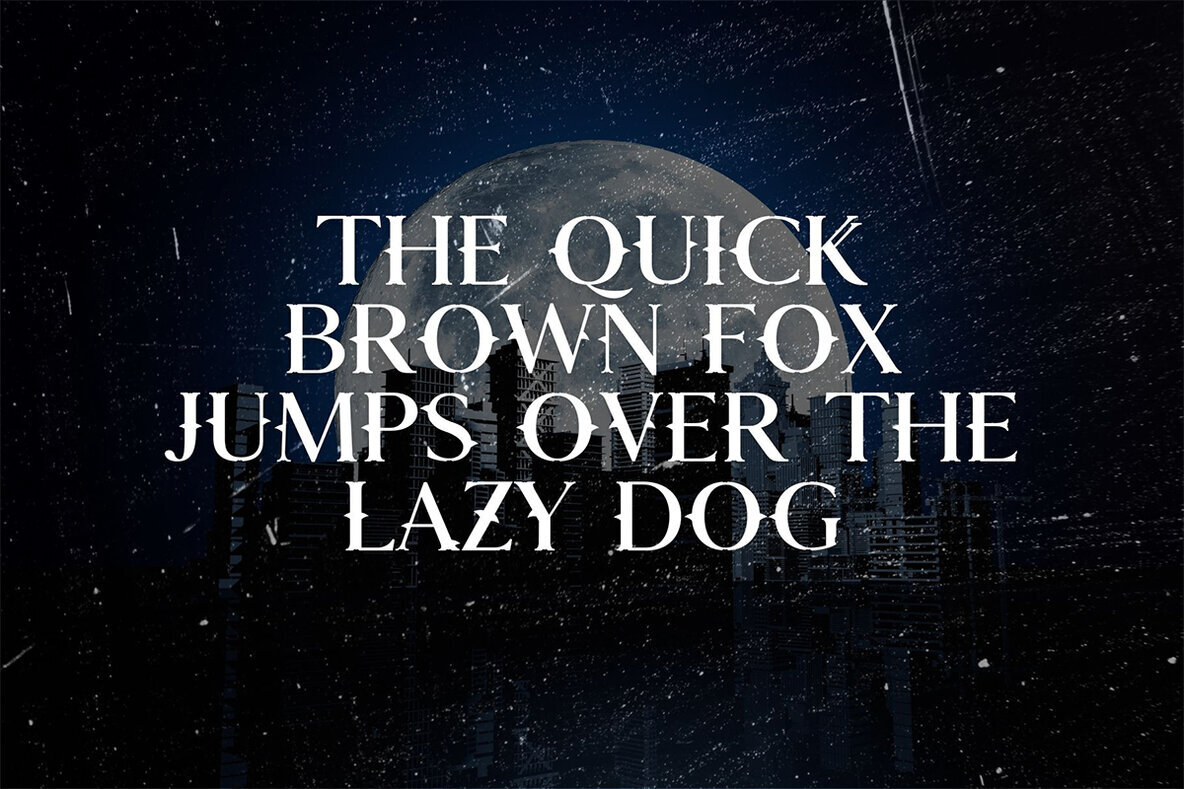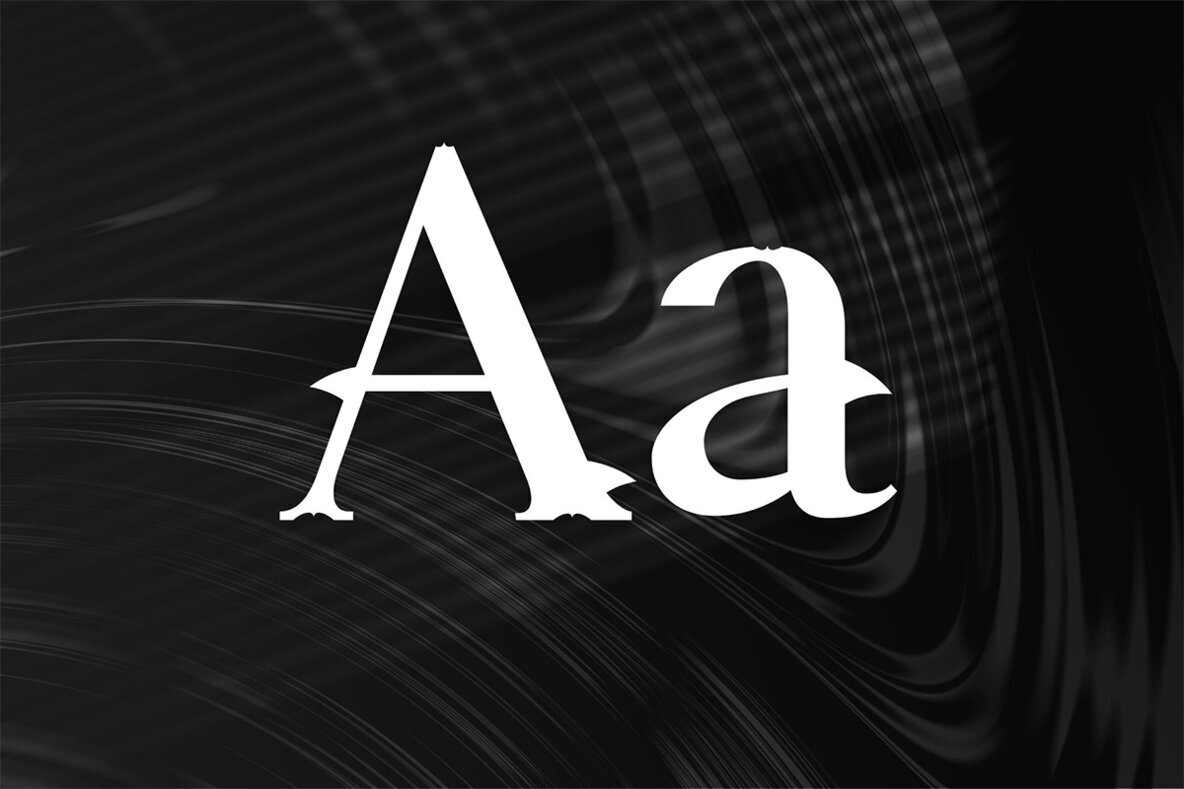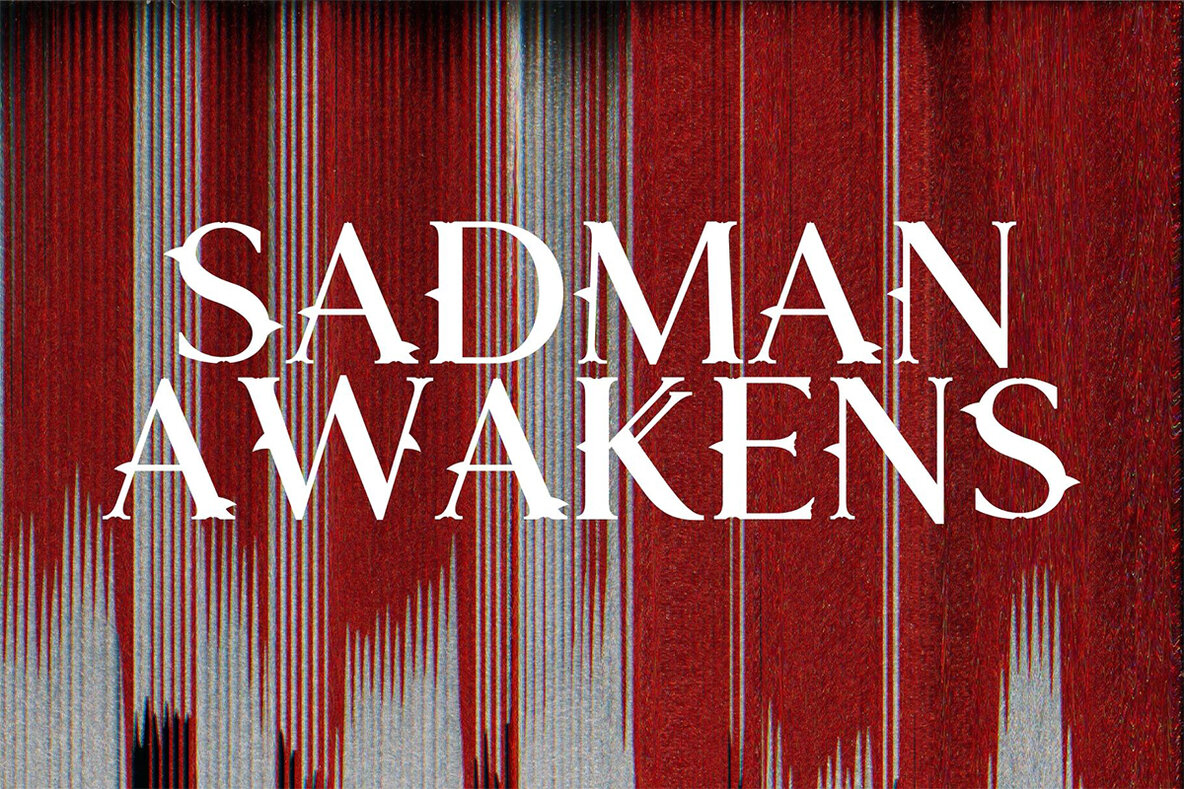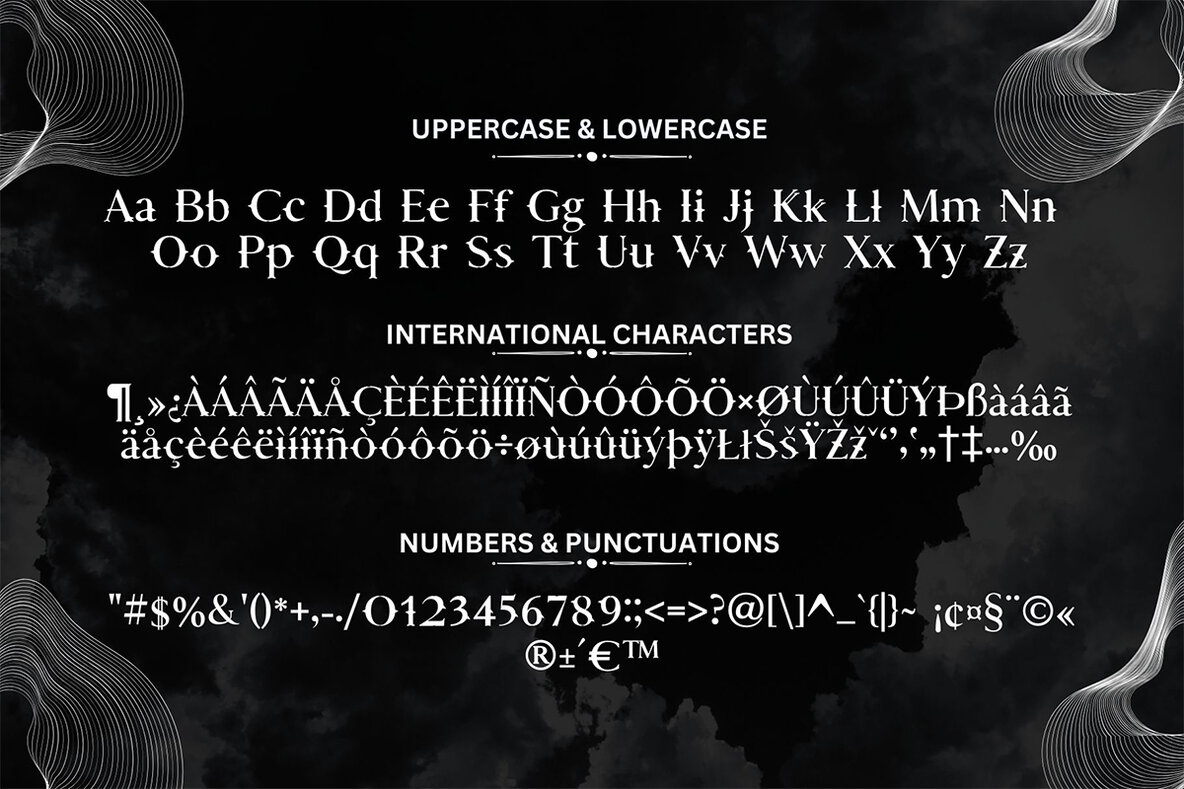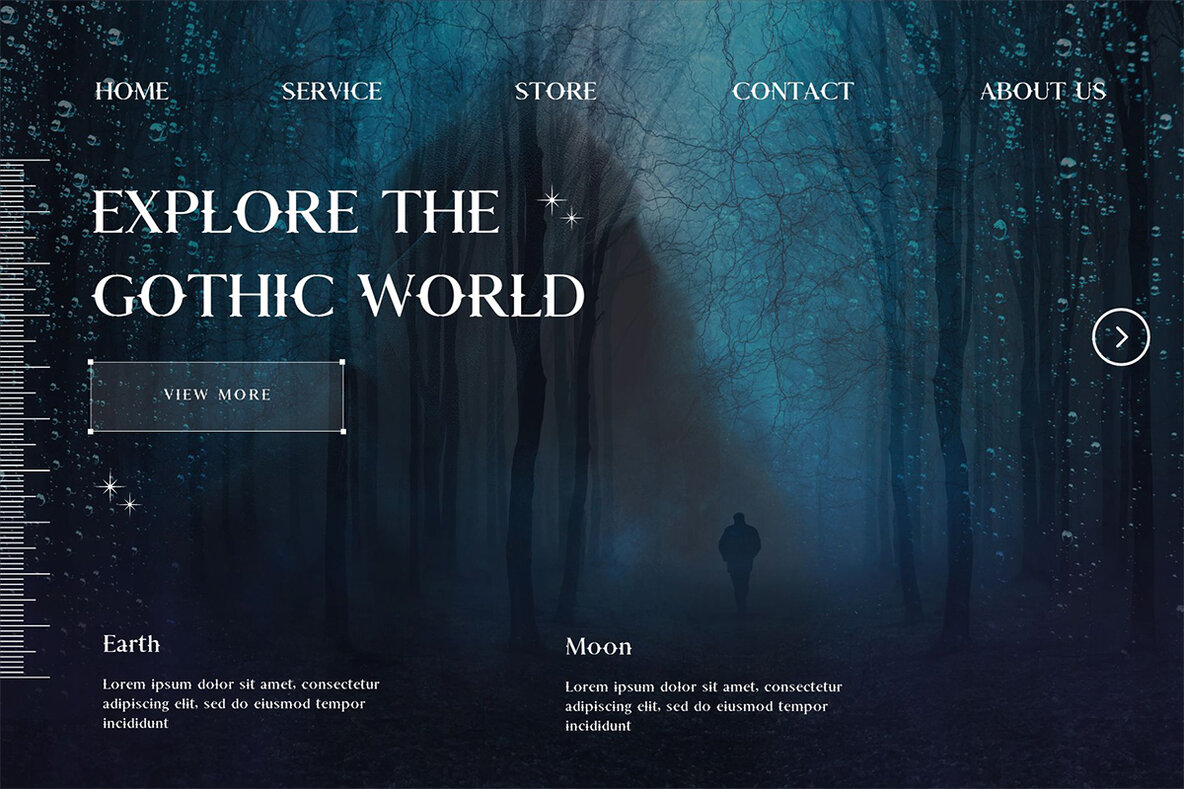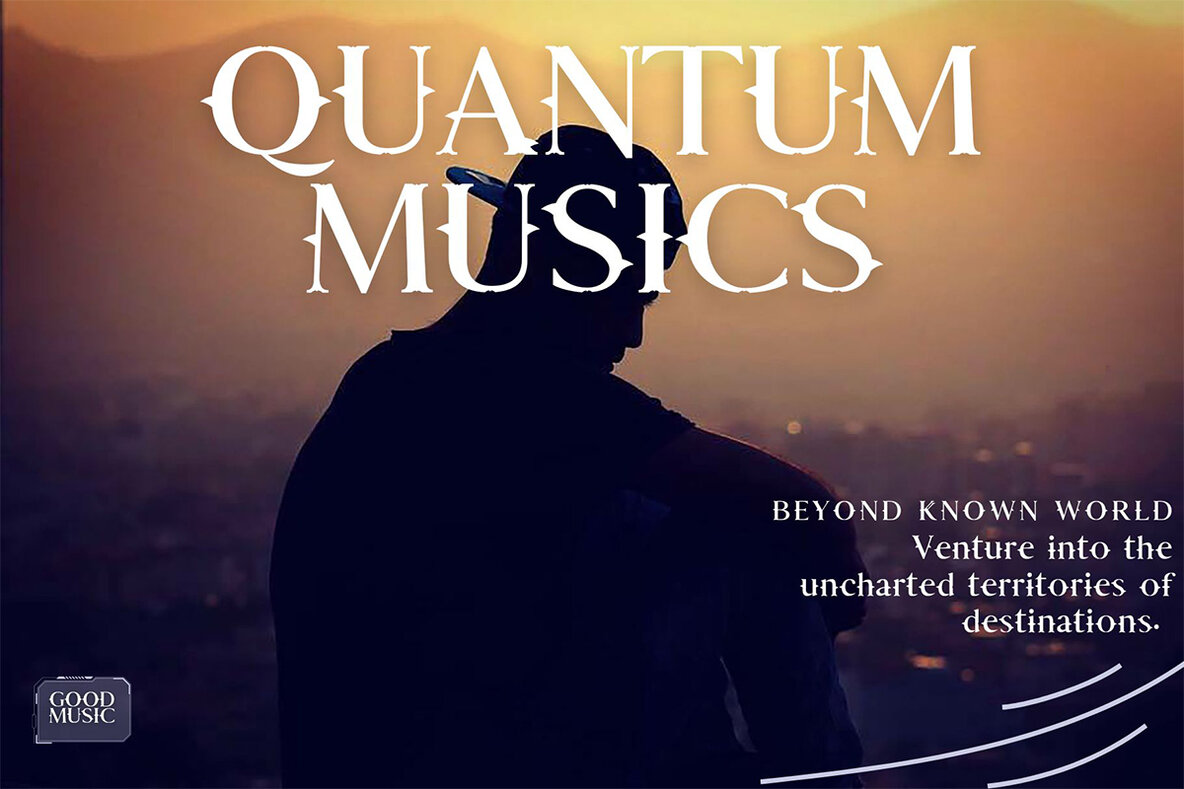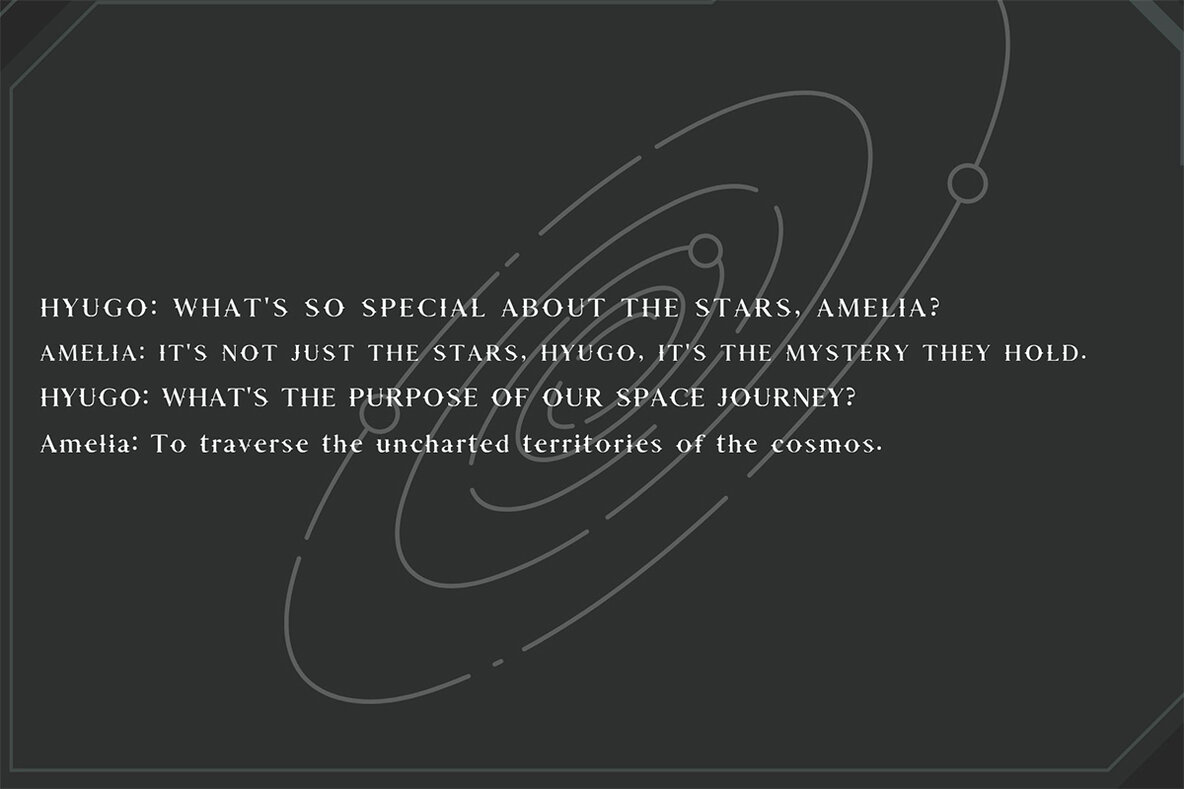
Aestura Font
Aestura is a Gothic font designed to add a spooky and bold touch to your projects. With its sharp, dark letters, this typeface is ideal for horror movie posters, book covers, and Halloween-themed designs. Its striking appearance creates a mysterious atmosphere that captivates the audience. The font features a complete set of uppercase and lowercase letters, numbers, and special characters, making it suitable for various languages.